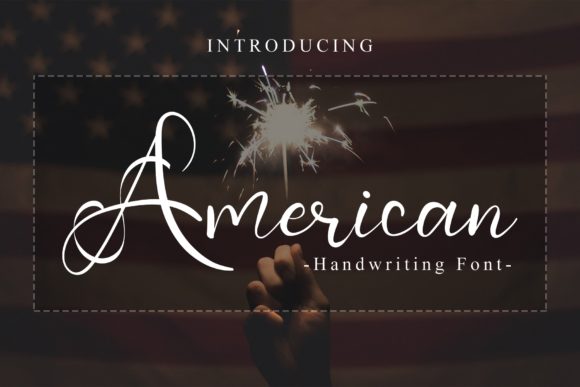
The Elegance of American Font: A Designer’s New Best Friend
I still remember the time I was working on a wedding invitation project, and my client asked for a font that was elegant, yet personal. I scoured the internet, tried countless fonts, but nothing seemed to fit the bill. That was until I stumbled upon American Font. It’s a unique and elegant handwritten font that has become a staple in my design toolkit. In this article, I’ll share my experience with American Font, its features, and how to make the most of it in your designs.
- ✨ Elegant and sophisticated, perfect for wedding invitations, thank you cards, and other formal designs
- ✅ Highly versatile, works well with a variety of design styles and themes
- 💕 Beautiful handwritten feel, adds a personal touch to any design
- 🎨 Great for logos, branding, and other creative projects that require a unique font
While American Font is an excellent choice for many designs, there are a few things to keep in mind:
- 🤔 May not be the best choice for body text, as it’s a display font and can be difficult to read in large blocks
- ⚠️ Some characters, like the uppercase letters, can be a bit ornate and may not work well with all design styles
The Story Behind American Font
American Font was designed with the intention of creating a unique and elegant handwritten font that would add a personal touch to any design. The designer, inspired by classic American typography, aimed to create a font that was both sophisticated and approachable. The result is a font that is perfect for wedding invitations, thank you cards, and other formal designs.
Q: What type of designs is American Font best suited for?
A: American Font is perfect for designs that require a elegant and sophisticated font, such as wedding invitations, thank you cards, logos, and branding.